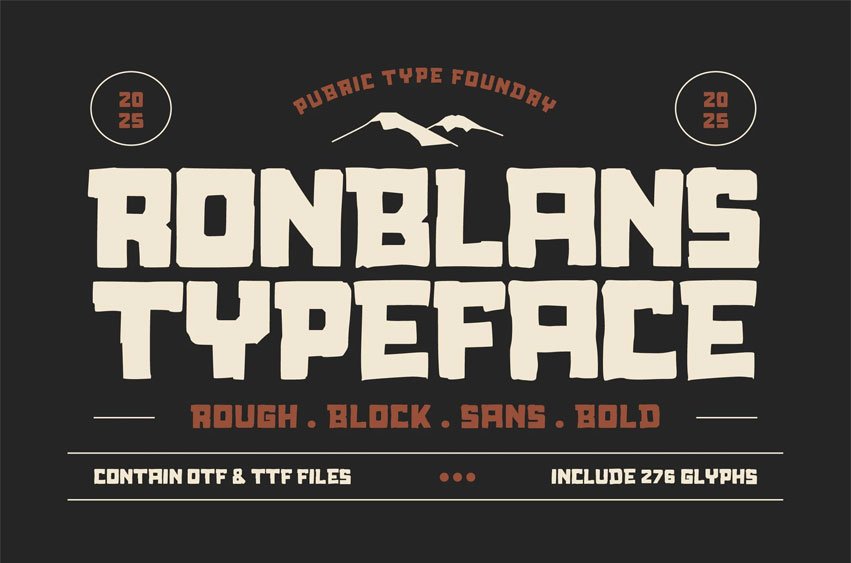
Ronblans Font is a textured display font with bold, blocky shapes that create a strong, masculine impression. It’s great for posters, branding, and bold visual projects that want to stand out.
Ideal for headlines, logos, editorials, packaging, quotes, films, games, album covers, books, and promotional materials. This font ensures your design stands out in any setting.